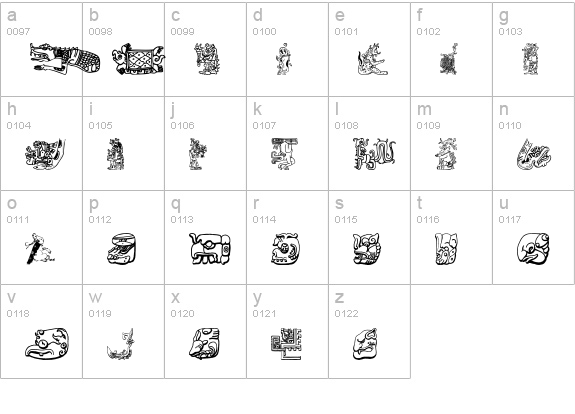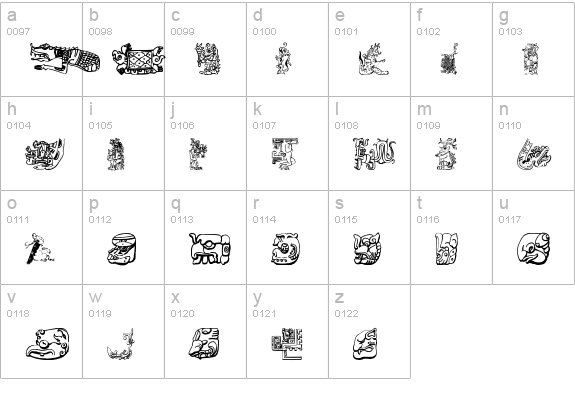
Introducing the enchanting and captivating Mythical font, a truly magical typeface that transports you to a realm of imagination and wonder. With its intricate curves and mystical design, Mythical is perfect for adding a touch of fantasy to your projects. Whether you're working on a fairy tale book cover, a fantasy-themed poster, or a mystical logo, this font will bring your creations to life in a spellbinding way. And the best part? Mythical is completely free to download at FontsMarket.com! Embrace the power of this otherworldly font and let your creativity soar to new heights with Mythical. Download it now and unlock a world of endless possibilities for your design projects.